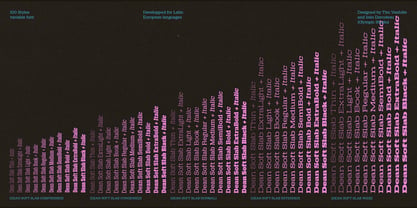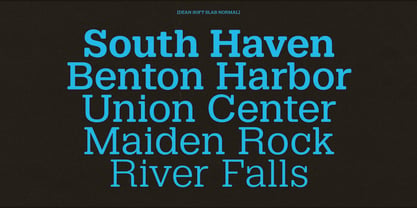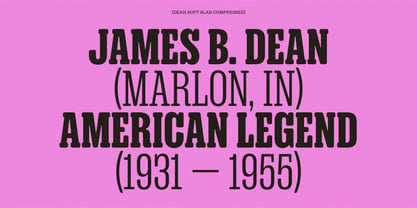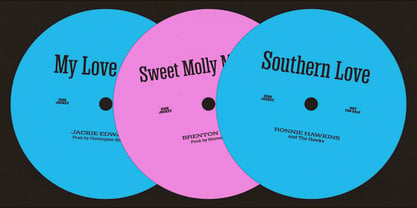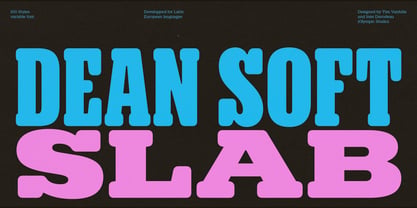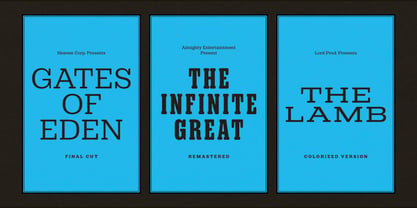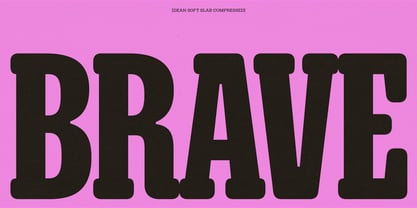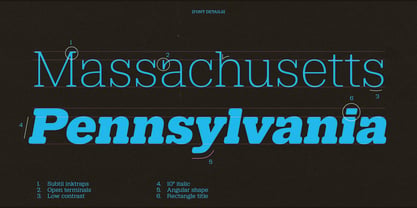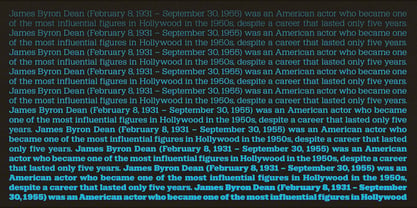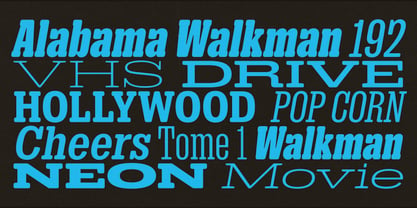
Dean Soft Slab VF
by Blaze Type
The Dean Soft Slab VF Font Family was designed by Tim Vanhille, Ines Davodeau and published by Blaze Type. Dean Soft Slab VF contains 2 styles. More about this family
The Dean family is a vibrant tribute to the musical and cinematic culture of mid-20th century America. These typefaces, rooted in the legacy of wood types and period posters, reflect an era of intense creativity when design served as the voice of a culture in full swing. With its four subfamilies, Gothic, Slab, Soft and Soft Slab, and a total of 400 styles, Dean is far more than just a typeface, it’s a creative tool that transcends time and usage, paying homage to the energy and freedom of a pivotal moment in American cultural history. With its smooth, rounded contours, Dean Soft introduces a warmer and more approachable tone to the family. Its softened angles bring a sense of friendliness and ease, while still preserving the distinctive character and structure of Dean. Balancing playfulness with clarity, it offers a more relaxed interpretation of mid-century typographic forms—one that feels both nostalgic and refreshingly contemporary. For a complementary design with a strong visual impact, explore Dean Soft Slab, which combines gentle curves with sturdy serifs for a uniquely expressive voice.
Designers: Tim Vanhille, Ines Davodeau
Foundry: Blaze Type